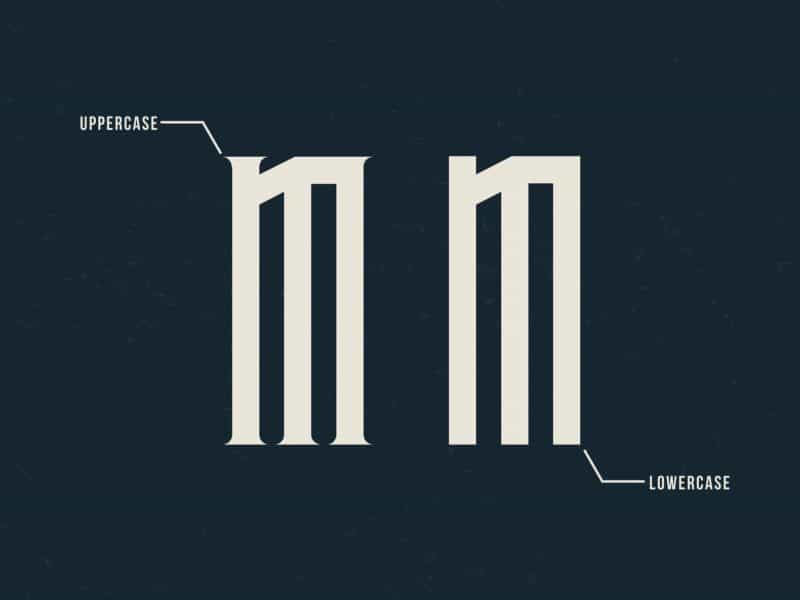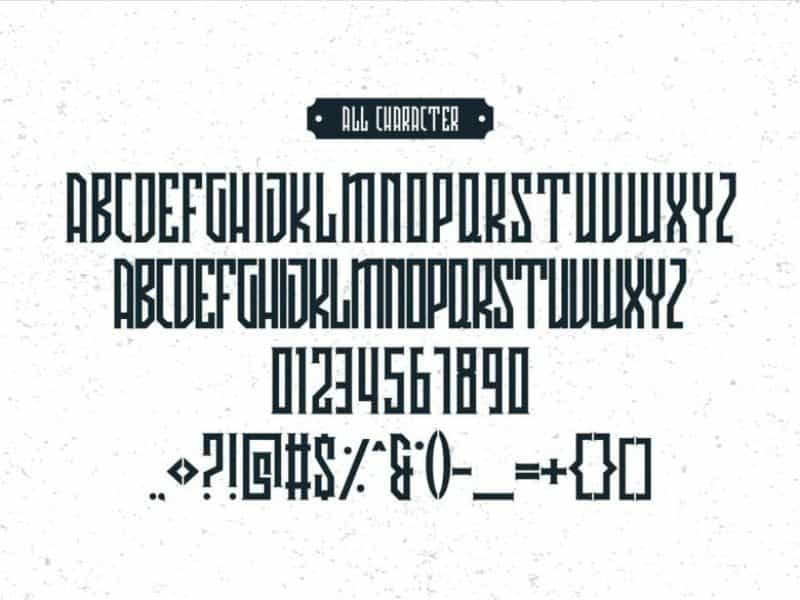
Avriella Font introducing. It is designed and shared by 24Design Stds. AVRIELLA is the display font typeface very suitable for any design needs: branding, logos, quotes, product packaging, merchandise, poster, modern advertising design, Art Quote, Home decor, Book/Cover Title, Invitation, special events, custom mug, pillow, t-shirts, etc.